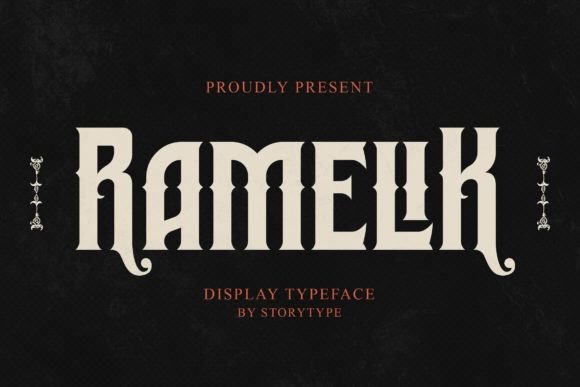
Introducing Ramelik Font: The Epitome of Elegance and Luxury in Blackletter Typography
In the realm of digital artistry, where words take shape and ideas materialize, lies a font that exudes unparalleled sophistication and charm: Ramelik Font. Step into a world of visual eloquence as we unveil the captivating allure of this modern blackletter masterpiece, a creation of Storytype Studio.
Ramelik Font isn't just a collection of letters; it's an artistic expression that breathes life into your creative endeavors. With its distinctive style and contemporary flair, this font transcends the ordinary, elevating your designs to new heights of elegance.
Designed to Enchant and Captivate
Ramelik Font's meticulously crafted characters possess an inherent beauty that commands attention and leaves a lasting impression. Each letter is a work of art, adorned with intricate details that showcase the dedication and artistry behind its creation.
The fluidity of Ramelik Font's lines dances across your designs, creating a visual symphony that captivates the senses. Its graceful curves and sharp edges blend seamlessly, evoking a sense of timelessness and modernity. Whether you're crafting a logo, designing a book cover, or creating stunning social media graphics, Ramelik Font effortlessly elevates your work.
A Font of Versatility and Endless Possibilities
Ramelik Font is a versatile chameleon, effortlessly adapting to a myriad of design projects. Its inherent elegance lends itself perfectly to fashion branding, where its presence exudes luxury and sophistication.
Unleash your creativity and let Ramelik Font guide you through the world of magazine design, transforming ordinary text into captivating headlines that demand attention. Its impeccable style also shines in the realm of lettering and quotes, adding a touch of class and distinction to your artistic expressions.
The Perfect Font for Your Creative Journey
Ramelik Font is more than just a font; it's a gateway to a world of creative possibilities. Its enchanting aura will enhance your designs, leaving an indelible mark on your audience.
Whether you're a seasoned designer or just starting your creative journey, Ramelik Font is the perfect companion. Its user-friendly nature makes it accessible to all, empowering you to create stunning designs with effortless ease.
So, embark on this creative adventure with Ramelik Font by your side, and witness the transformation of your designs into captivating masterpieces. Let your imagination run wild as you explore the endless possibilities that await you.